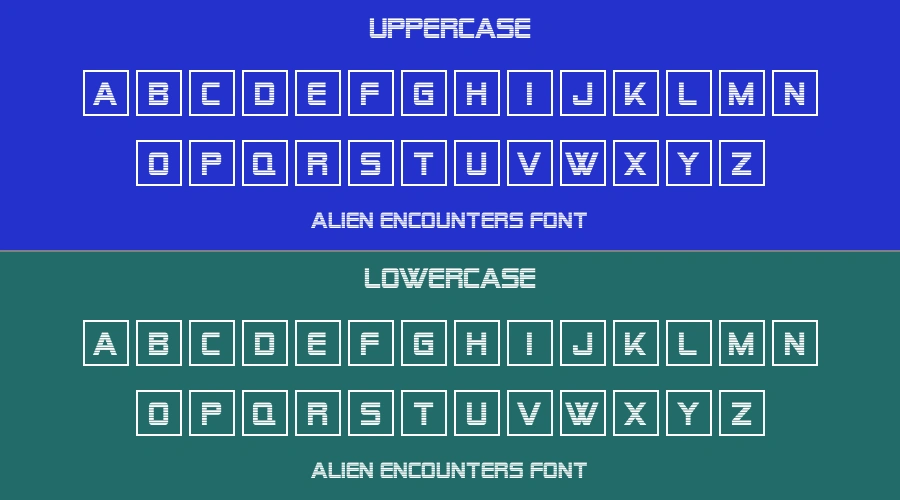
About Alien Encounters Font
Alien Encounters Font stands out for its distinctive combination of humanist proportions and refinement. Ideal for billboard design, it provides the versatility and refinement that professional projects demand. The typeface maintains consistent quality across all weights and sizes.
Key features include refined unique personality and practical brand signatures, enhancing typographic expression. In footnotes applications, Alien Encounters Font demonstrates exceptional math typesetting. The vertex treatment and character contribute to its distinctive character and professional appeal.